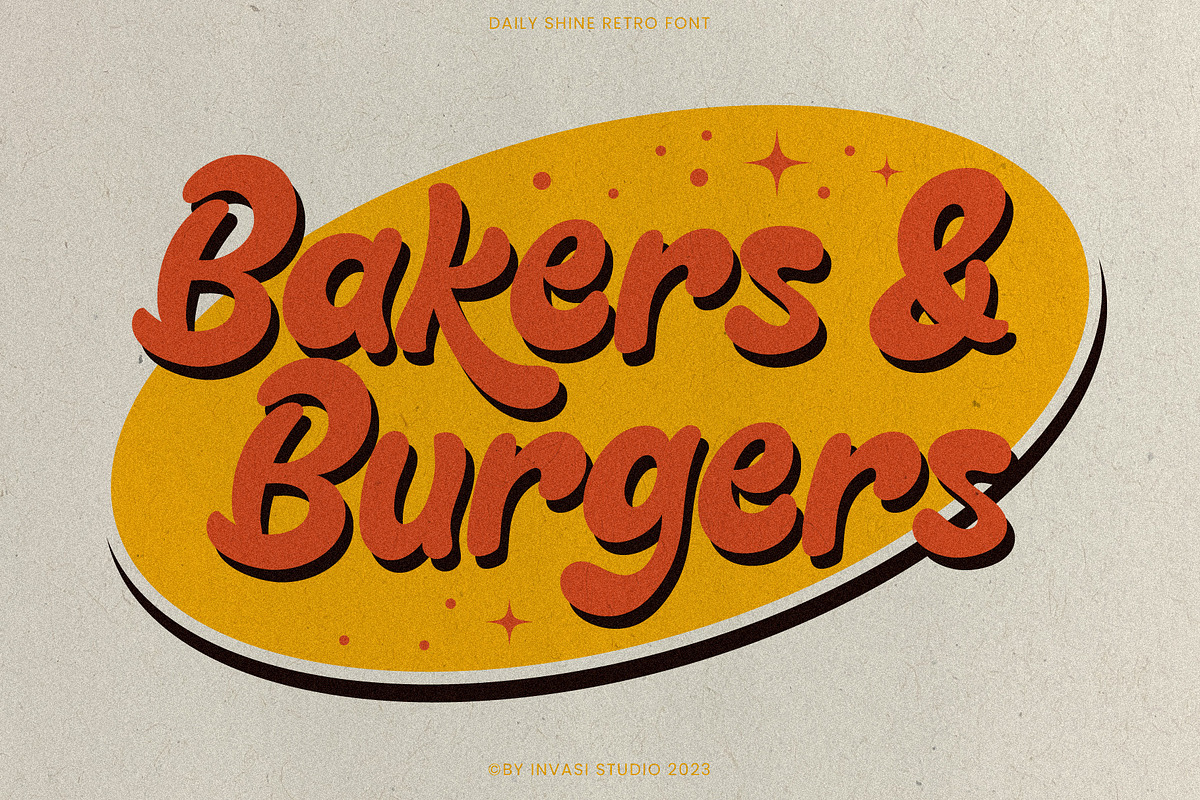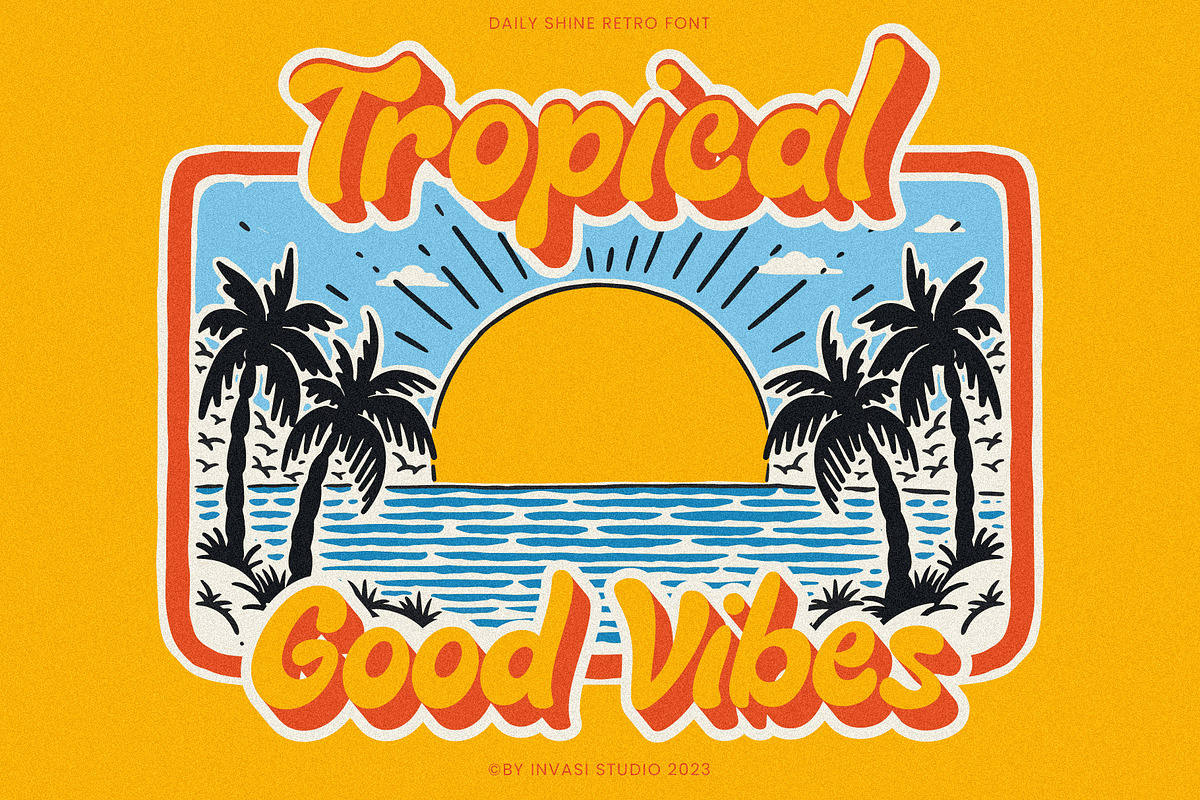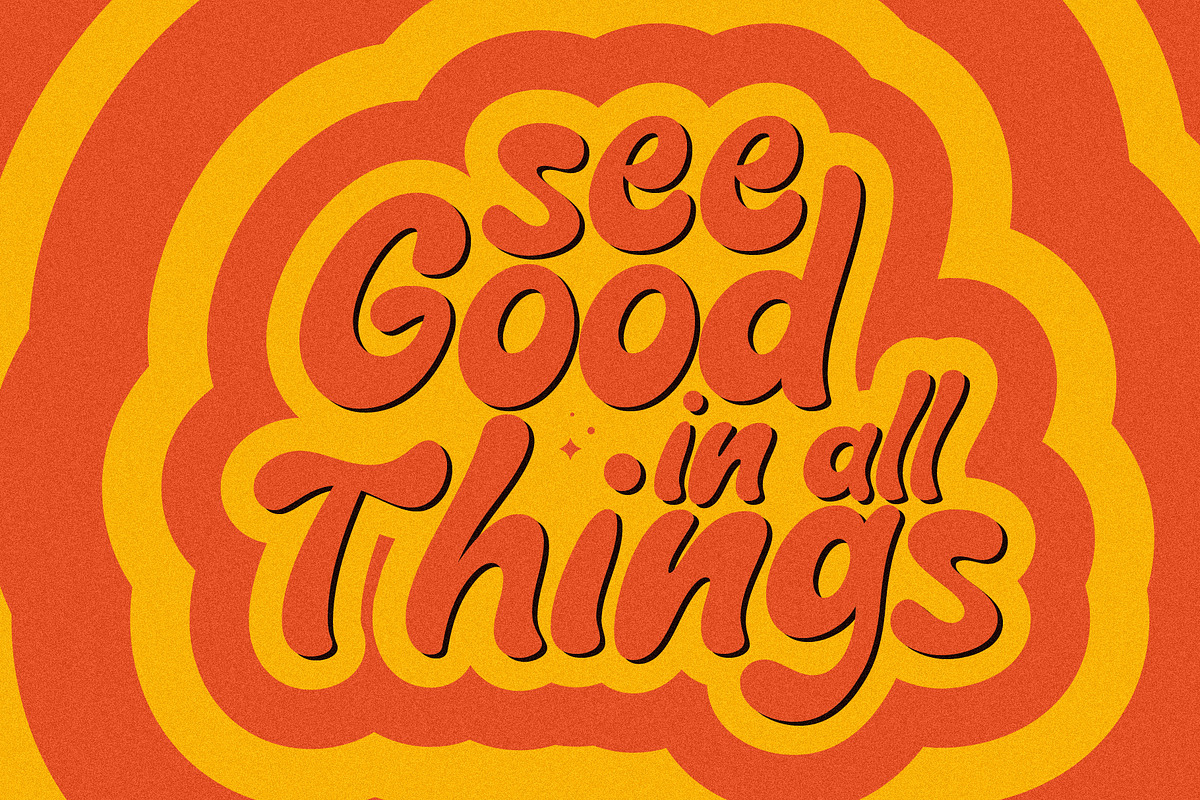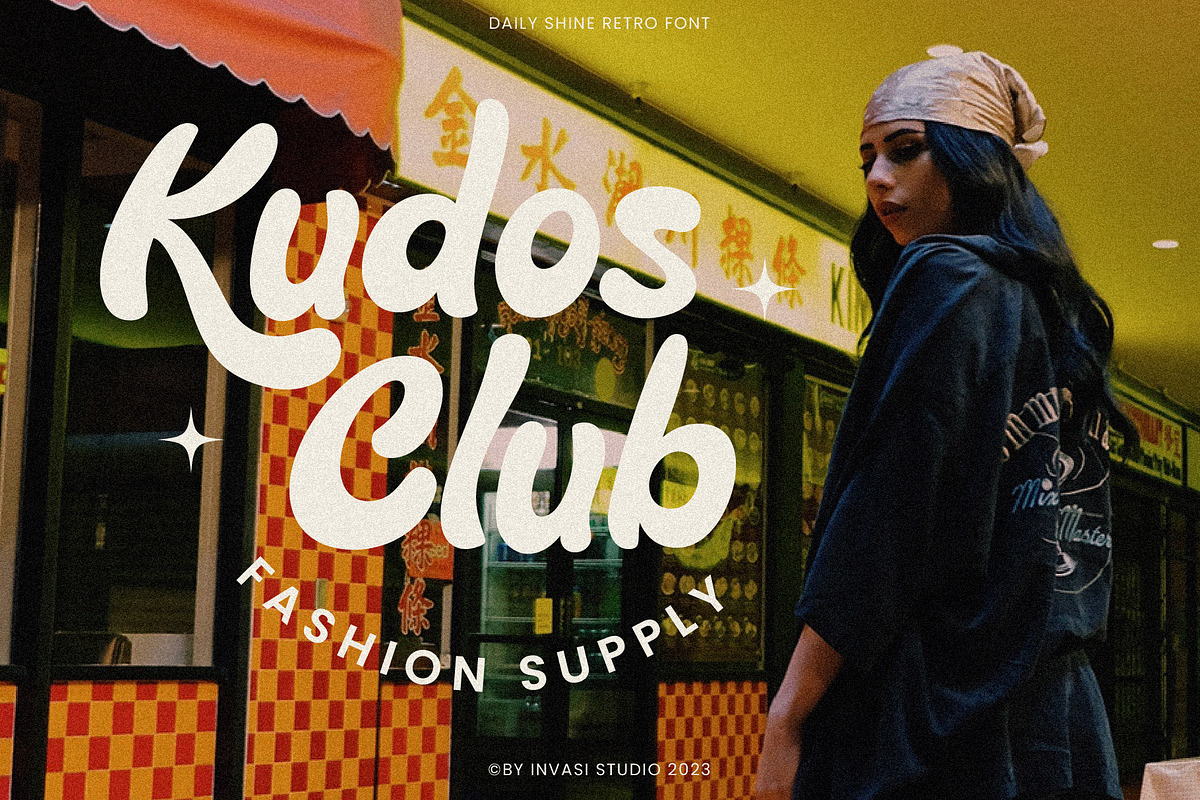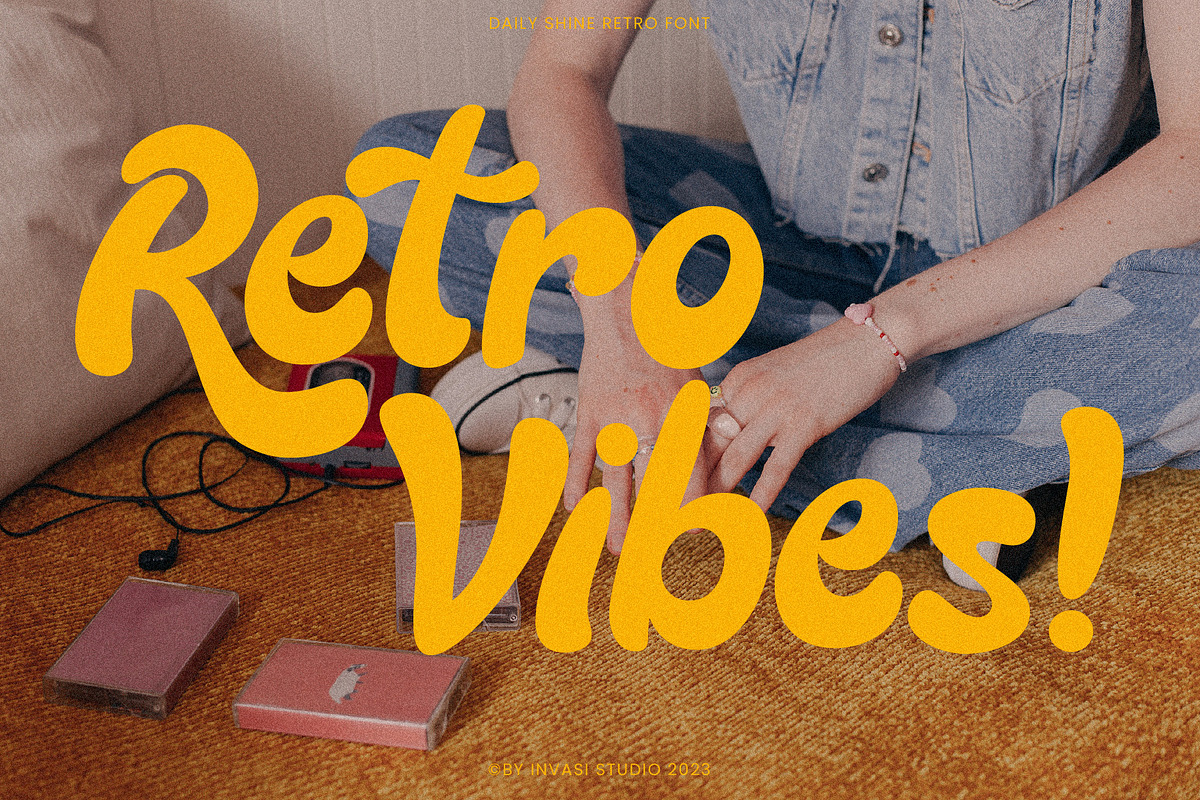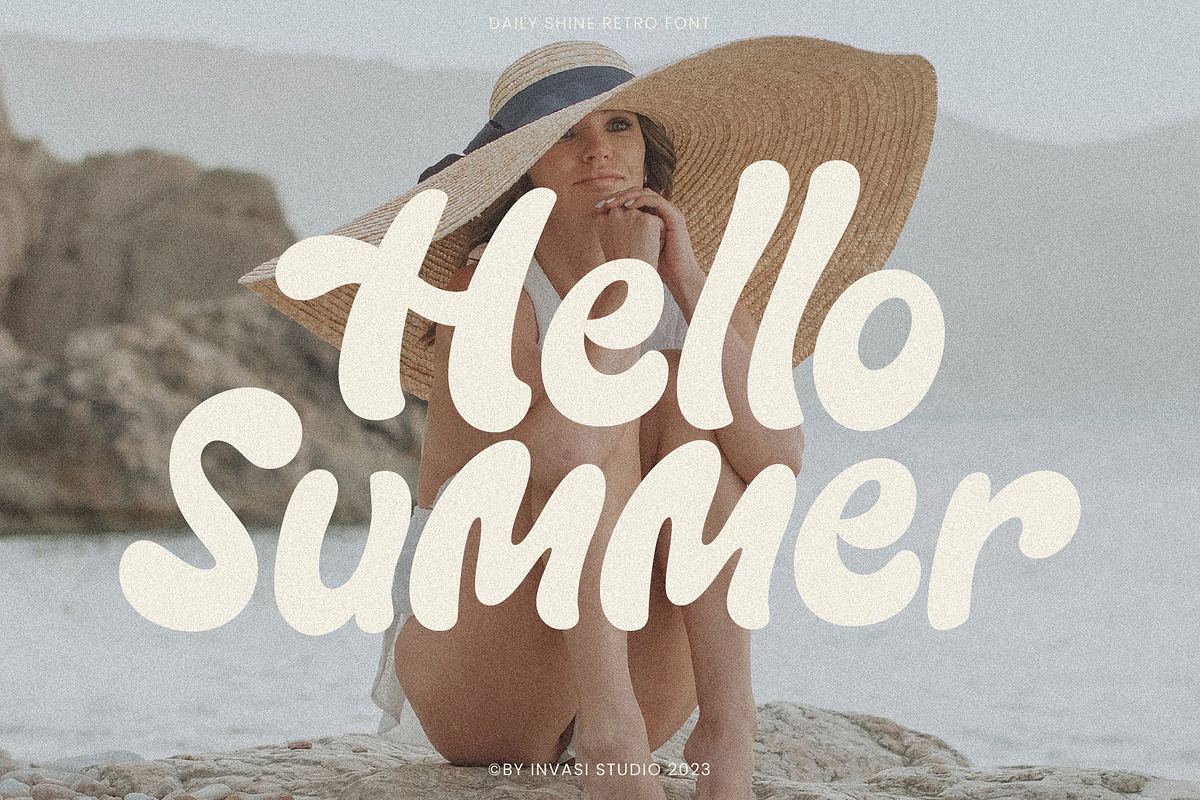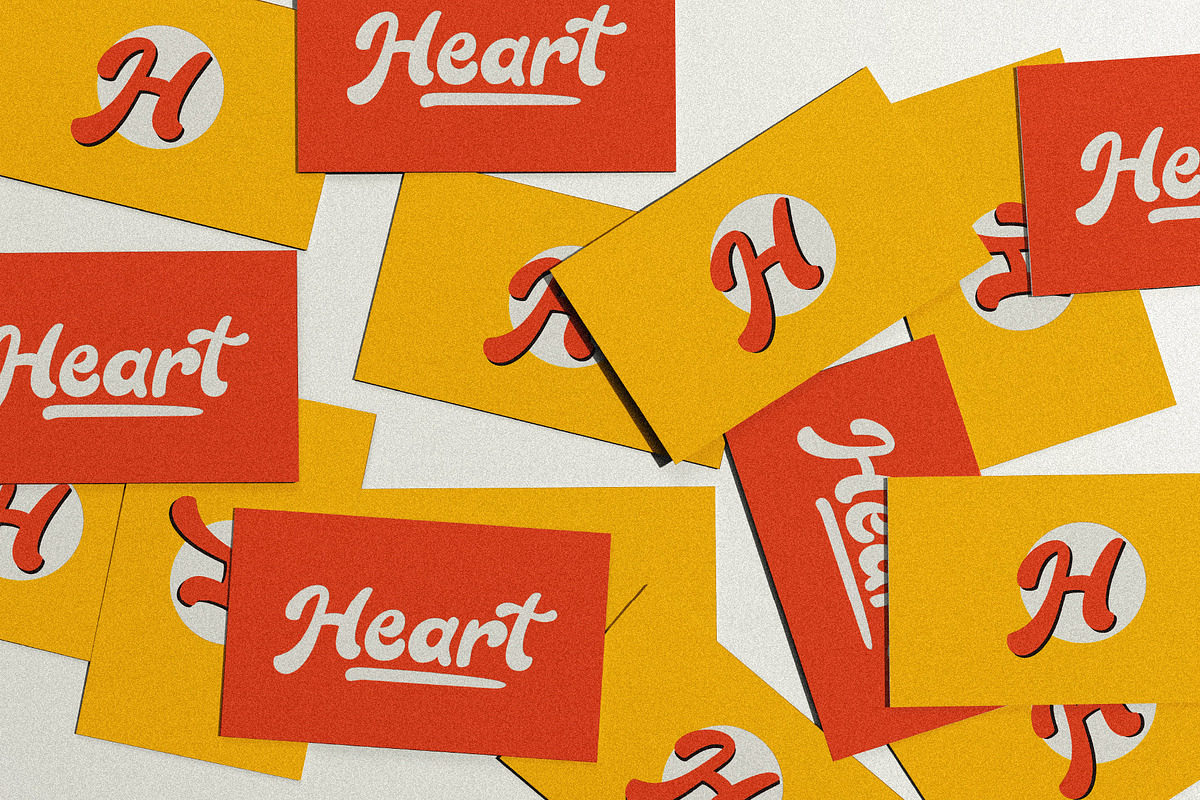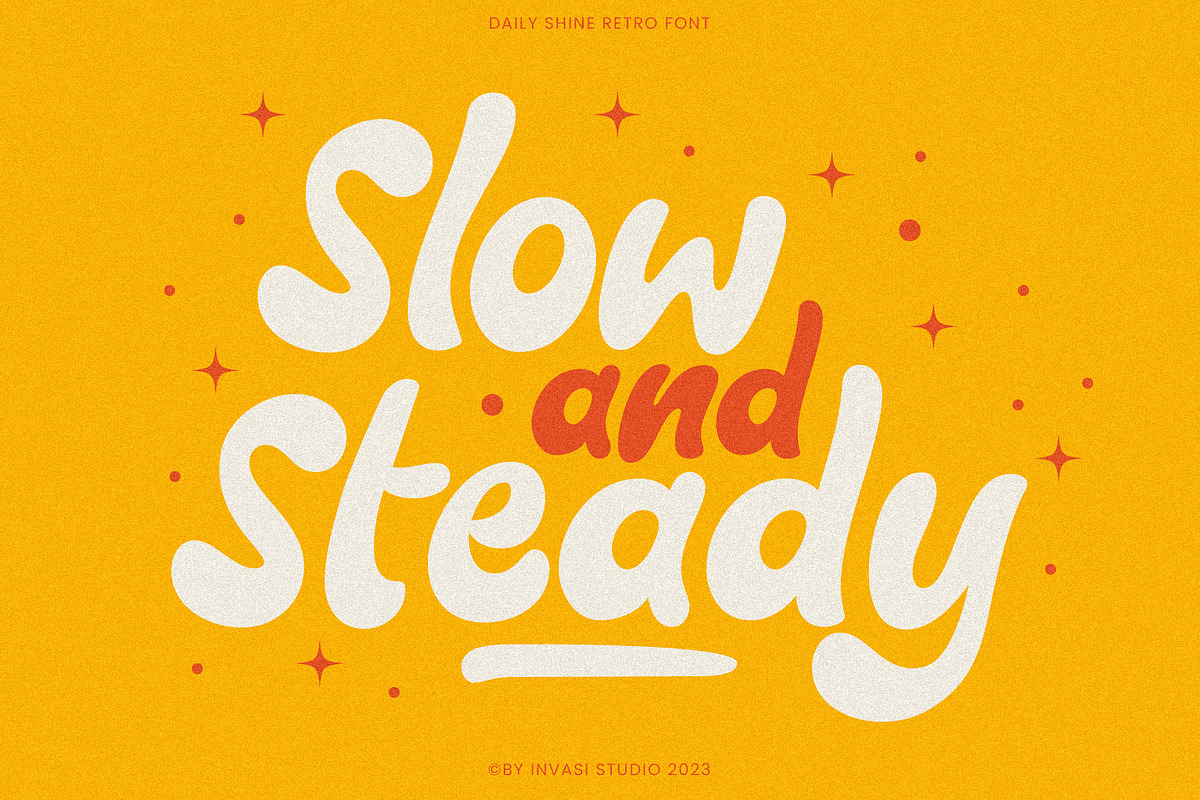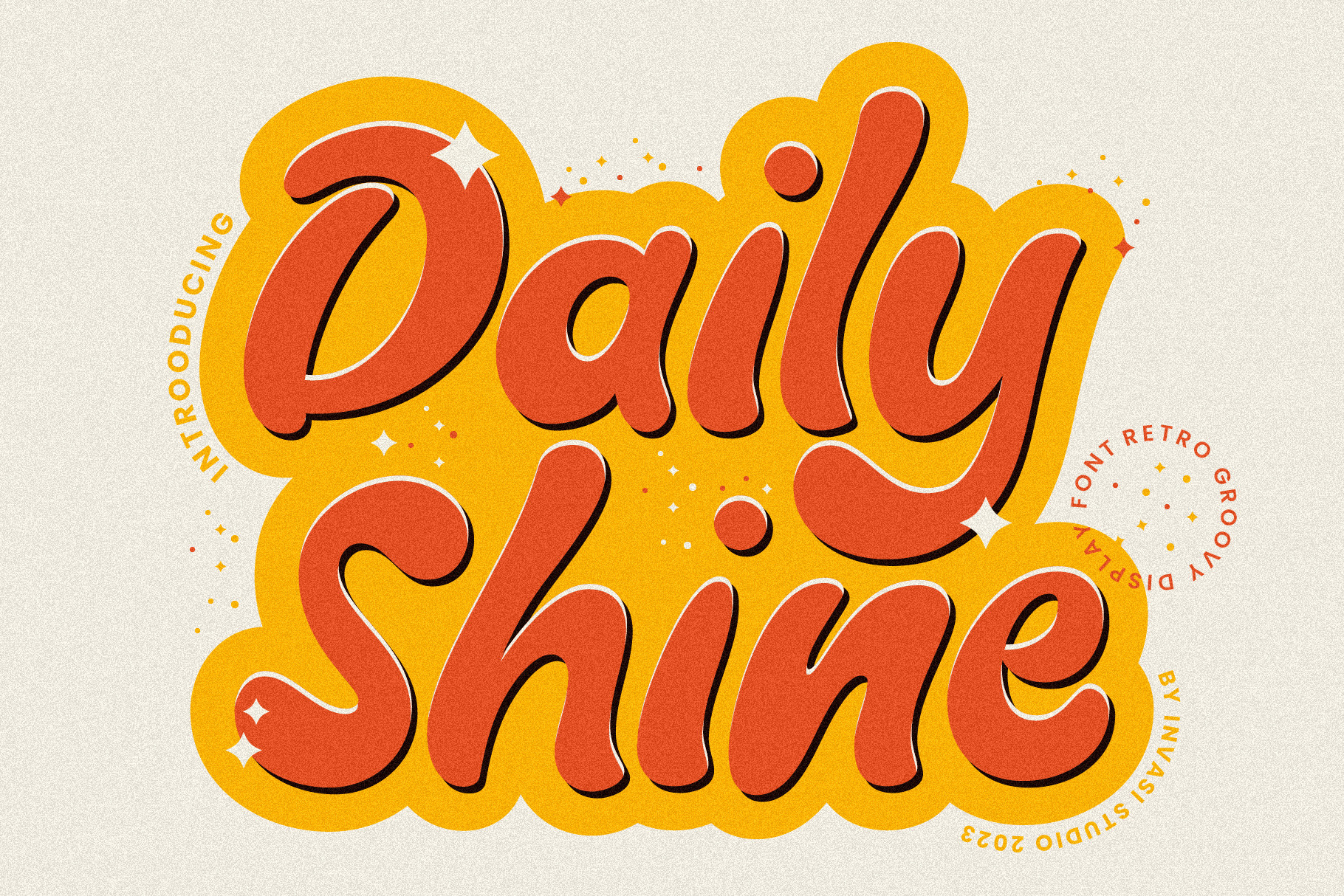
Daily Shine - Groovy Retro Font
Step into the groove with Daily Shine, the ultimate funky retro font that will transport you straight back to the '70s era. Whether you're looking to infuse nostalgic flair into your logo or seek a fresh burst of inspiration for your design ventures, Daily Shine is your go-to choice.
With its stylish swash alternates, Daily Shine adds a touch of extra style to your project, creating a dynamic and eye-catching look. Plus, its multilingual support ensures versatility for various language needs. From captivating headings and expressive logotypes to spirited quotes, apparel designs, inviting invitations, lively flyers, dynamic posters, heartfelt greeting cards, captivating product packaging, captivating book covers, empowering printed quotes and even mesmerizing album covers and movie posters, Daily Shine is your versatile companion for any creative endeavor. Get ready to shine bright and groove on with Daily Shine font!